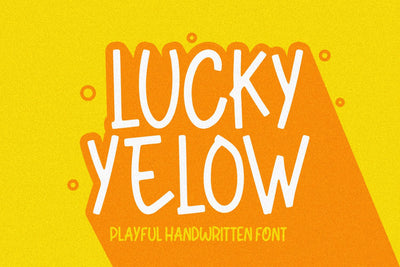
Lucky Yellow Font
Introducing Lucky Yellow by Forberas Club
Lucky Yellow is a Handwritten Script font that will make your designs look classic, Farmhouse, Boho, and Feminine. It is a great font for events, Wedding Project, signature, album covers, logos, magazines, advertisements, Crafting Idea but it also works great for other projects. Add it to your fonts library, and it will enhance your creativity!
Lucky Yellow is best for:
- logos, branding, & Signatures.
- Flyers, Album cover, Magazine, & Advertisements.
- Website design , design blogs.
- Quote graphics for social media. - and also it works great for other projects.